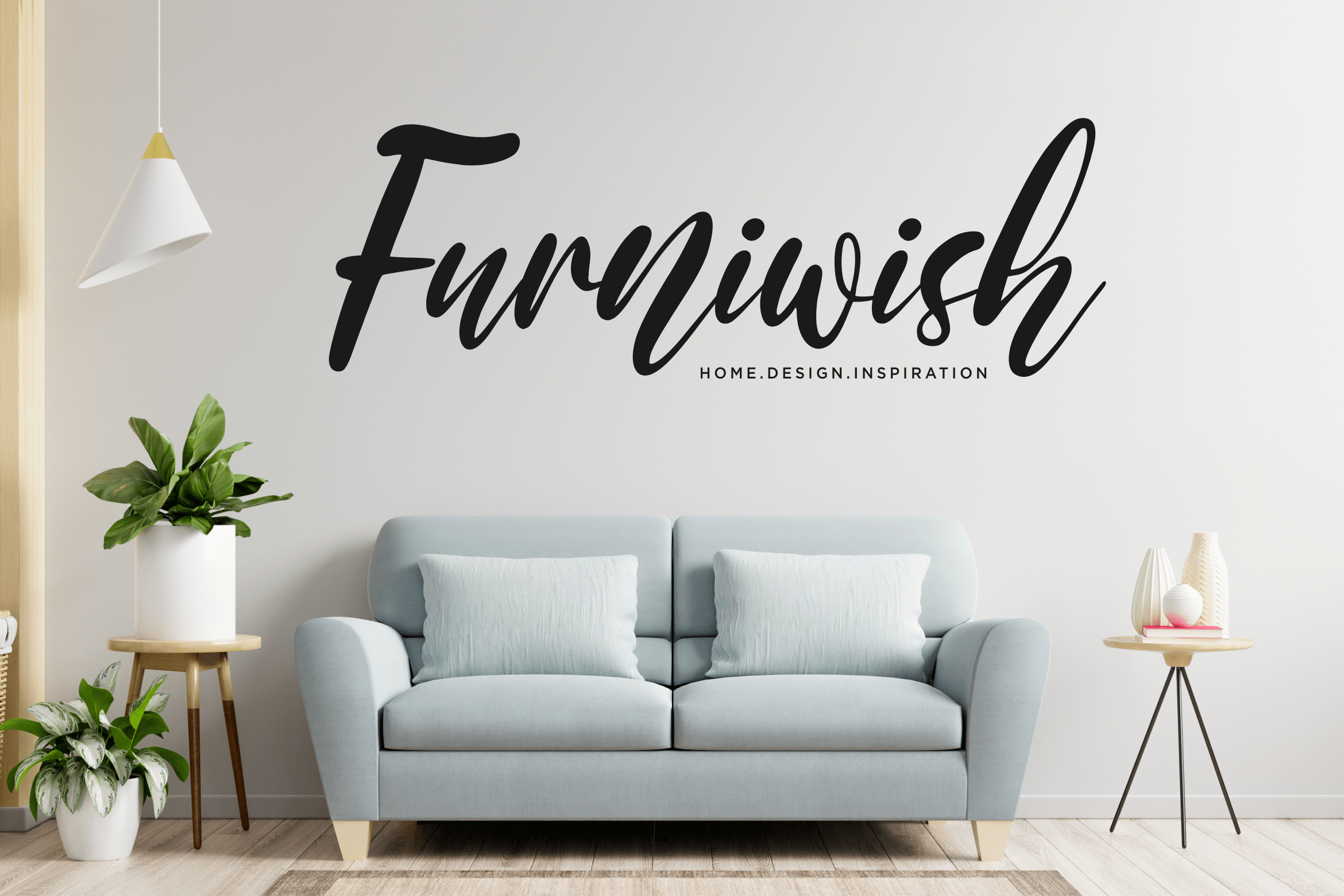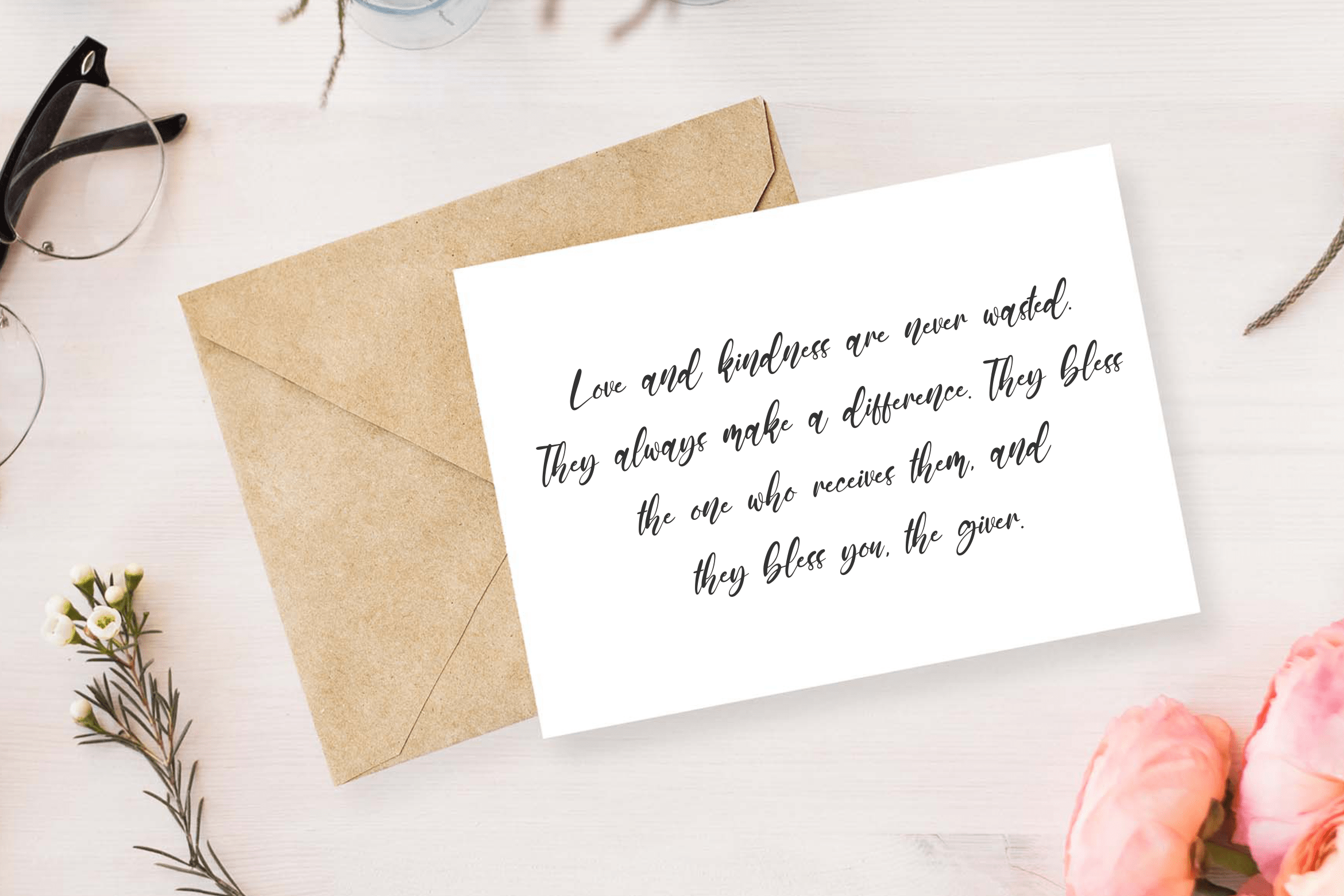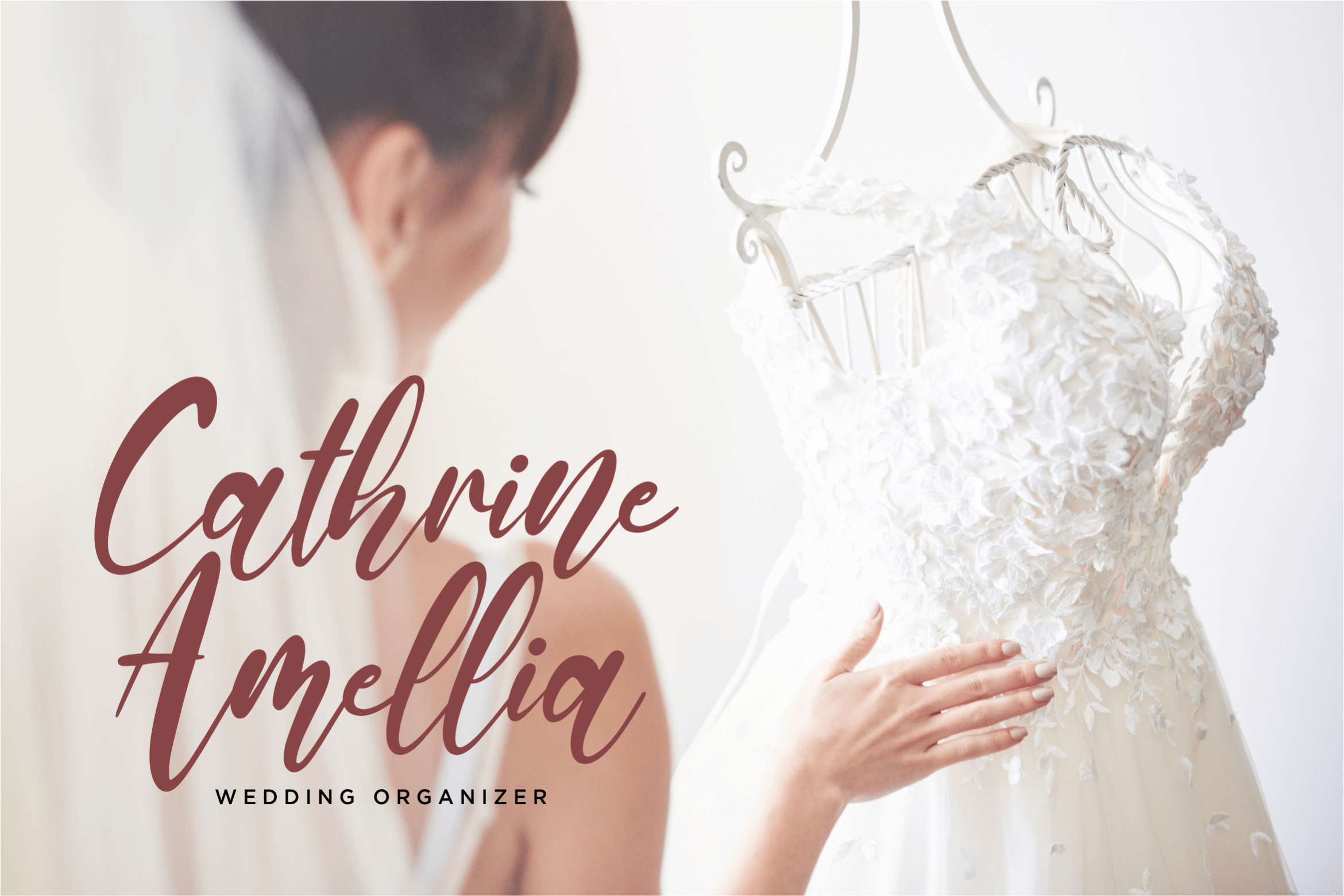
Memonoglia Font
Memonoglia Script Font
This is a lovely and delicate script font that exudes elegance and class. This font was particularly crafted for those who need a beautiful and refreshing look to their designs.